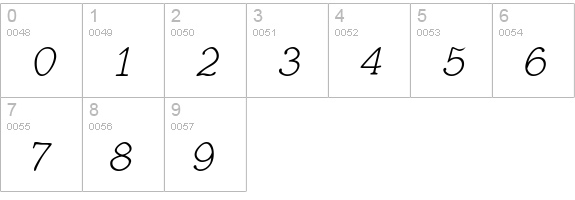
BetterKamp Italic Font Details
BetterKamp Italic is a distinctive, italic variant in the BetterKamp typeface family \xE2\x80\x94 well suited to design and typography projects.
BetterKamp Italic is a sleek and modern font that exudes elegance and sophistication. With its stylish curves and unique design, this font is perfect for adding a touch of class to any project. The italicized style adds a touch of flair and individuality, making it stand out from the crowd. The best part about BetterKamp Italic is that it is completely free to download at FontsMarket.com. You can easily access this stunning font and incorporate it into your designs without any cost. Whether you're working on a professional project or a personal creative endeavor, BetterKamp Italic is sure to elevate your work and leave a lasting impression. Don't miss out on the opportunity to enhance your designs with the beauty and sophistication of BetterKamp Italic. Download this font for free today and take your projects to the next level.